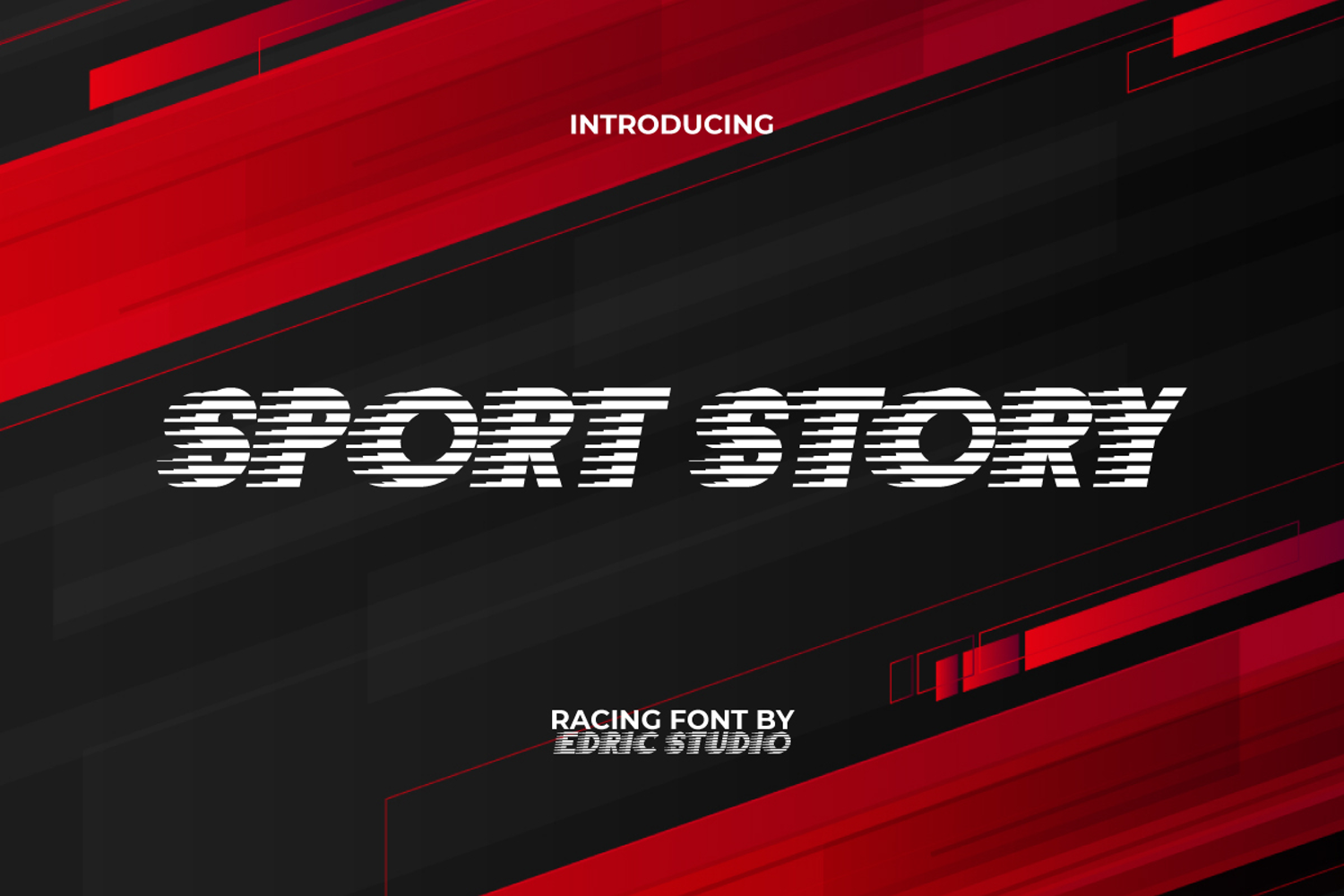
Sport Story
Sport Story Font a modern speedy racing display font with decorated slanted shapes and the stripes convey a fast-moving impression making it creative in its own way. Ideal for app themes, logos, poster, screen print, stationery, stickers, t-shirt designs, websites and a variety of attention-grabbing design projects. Versatile and easy to use both digital and print.
Sport Story Font is a sporty racing display font with bold and contemporary typeface with a sense of speed is perfect for creating anything with a sports race theme. This font best used for clothing brands, fitness center, games, sportswear, supplement brands, and anything else related.